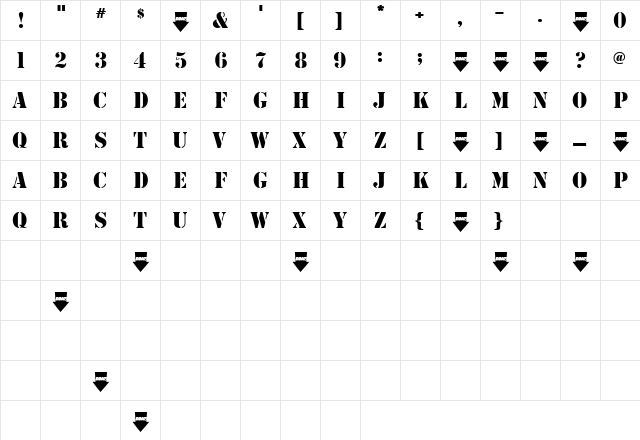
SafeHouse Regular
Design Context for SafeHouse Typeface
SafeHouse takes a measured approach to typography — its balanced proportions and neutral character make it a reliable workhorse for both digital and print work.